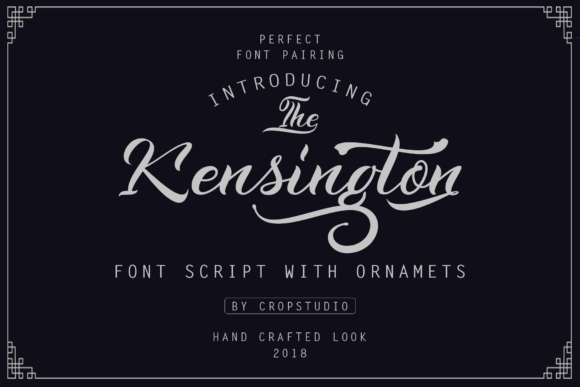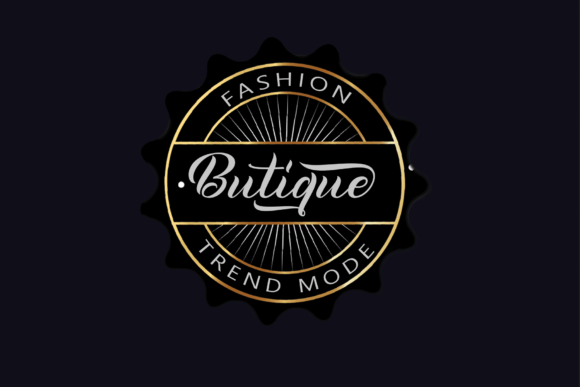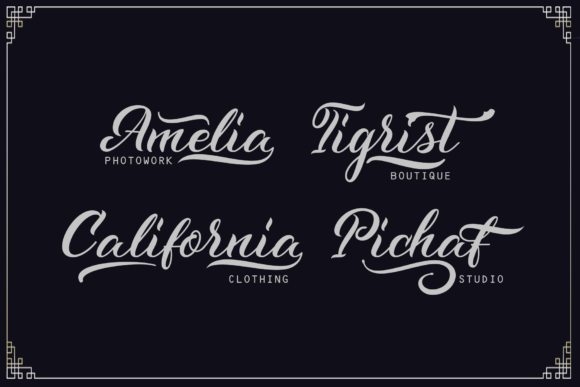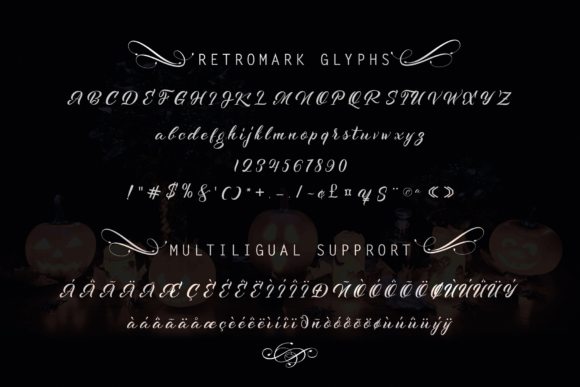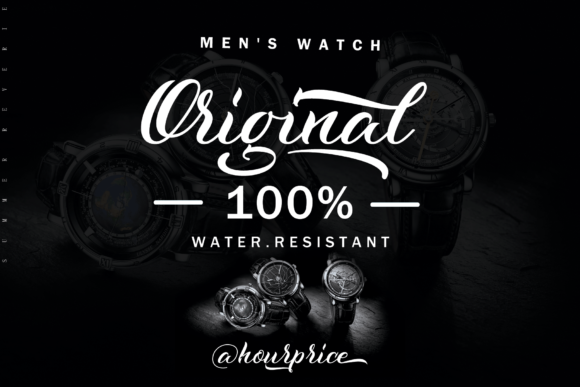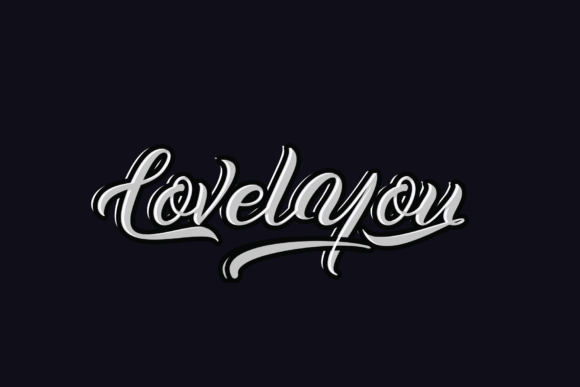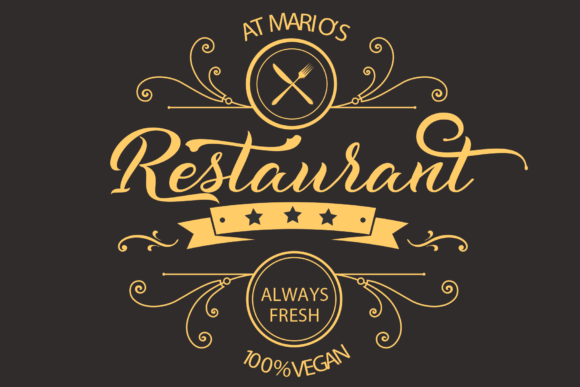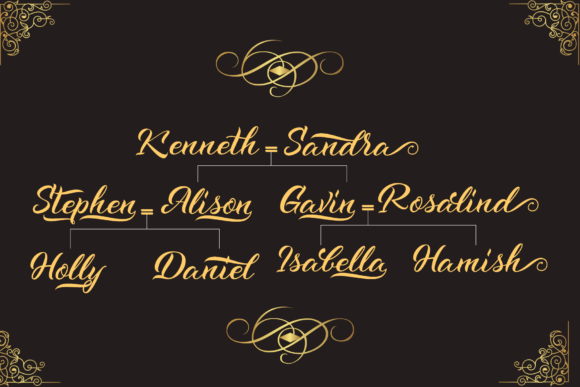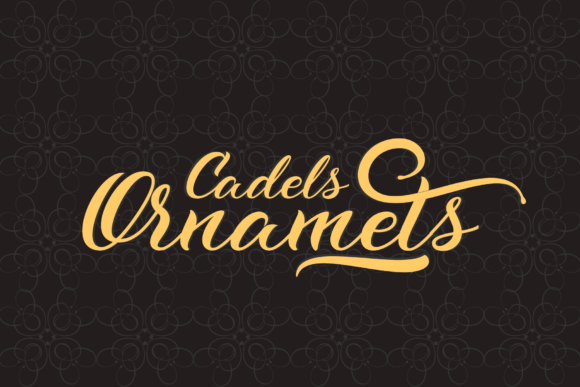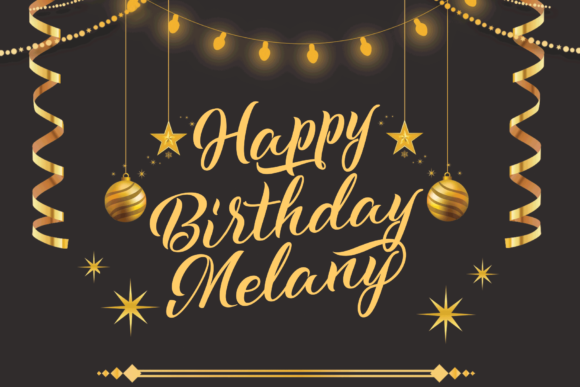
Kenshington Font
About Kenshington Font
The Kenshington is a retro hand written typeface. It has a bold and clean style which makes it perfect for t-shirts, logos, signature, branding, and much more!